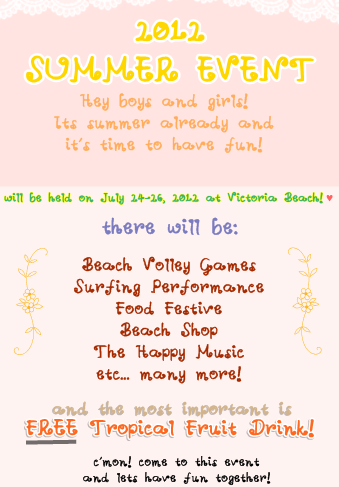
Preview and download A Swirl Velvet Font. Created by Cindyyo in Fancy Curly styles with Free for personal use license.
Font name: | A Swirl Velvet |
Author: | Cindyyo |
Note by Cindyyo | |
A swirl edition by Cindyyo! I tried to put a little 'swirl' in each characters. Hope it isn't too bold! have a nice time! <3 |